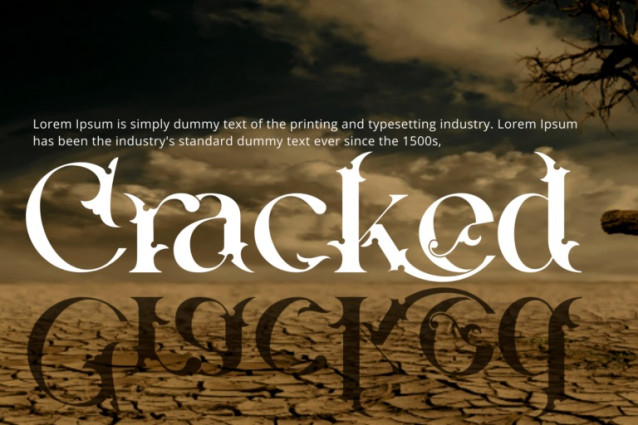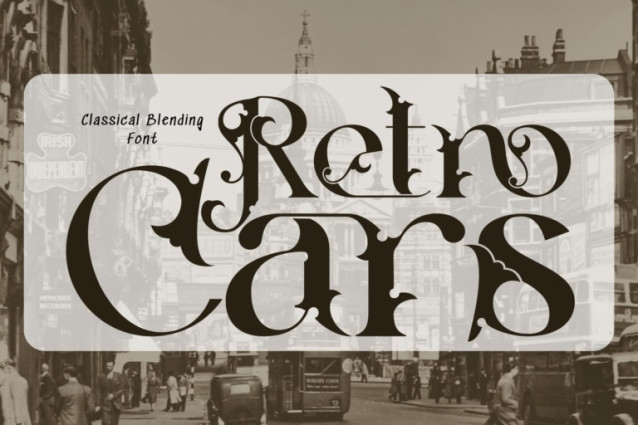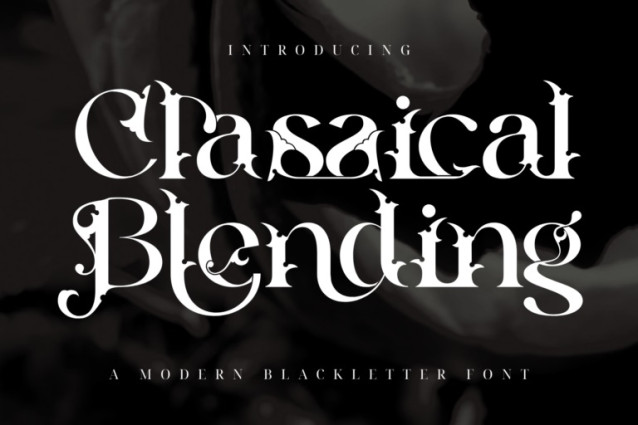
Classical Blending Font
Classical Blending – Gothic Font – A Baroque-Modern Display Serif Font, a bold and artistic serif font that merges the elegance of classical typography with the mystique of baroque fantasy. Its sweeping terminals, sharp spurs, and ornamental ligatures form a visual rhythm that evokes drama, mythology, and avant-garde aesthetics. Each character is meticulously designed to blend gothic sensuality with modern typographic precision — a perfect balance between tradition and rebellion.
Font Features:
Uppercase & Lowercase Letters
~100 Special Ligatures & Stylistic Alternates
Accented Characters (Multilingual Support)
About 100 ligatures combined with Stylistic Alternates Font: